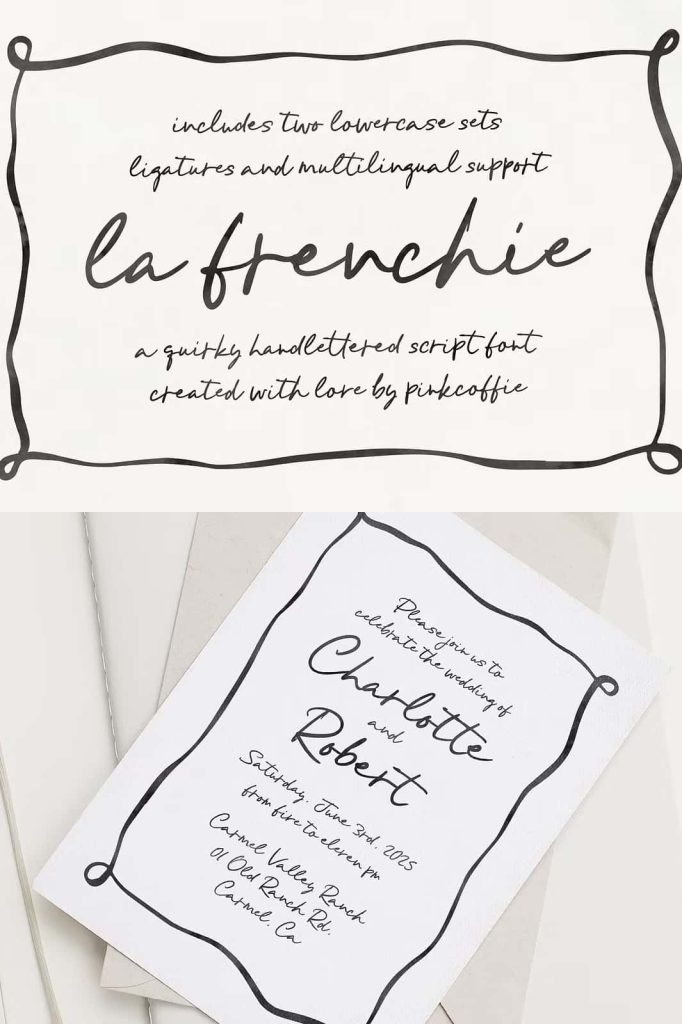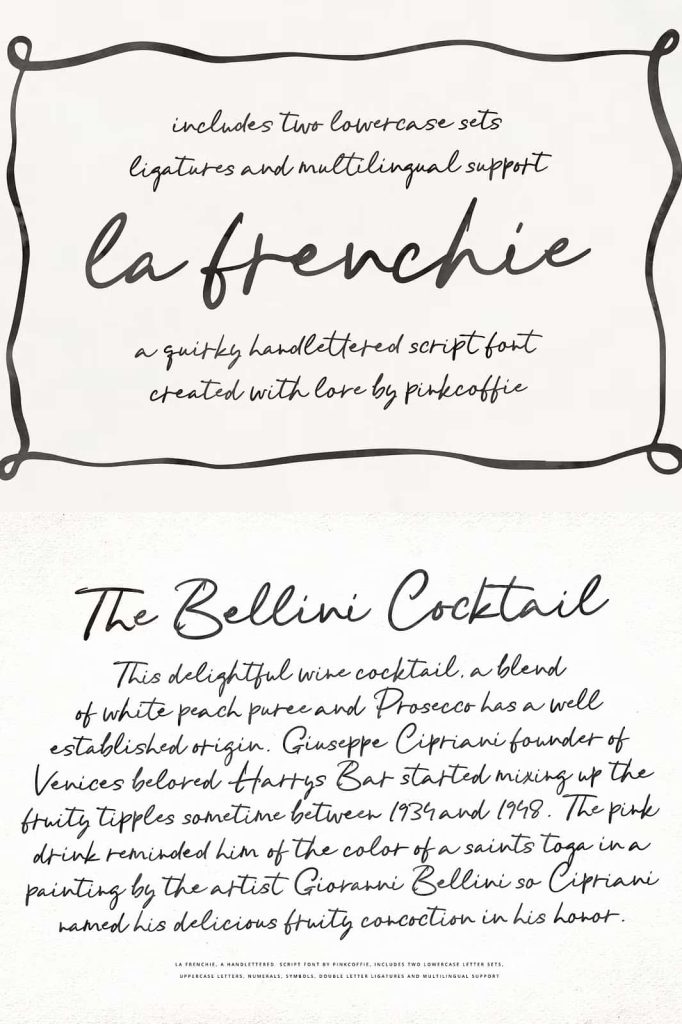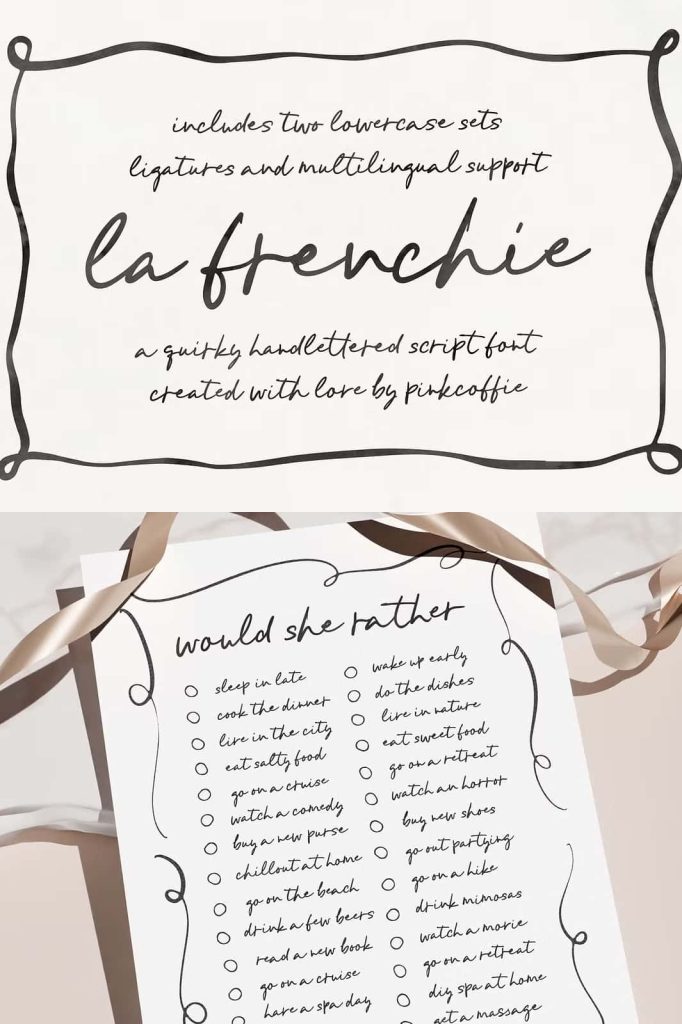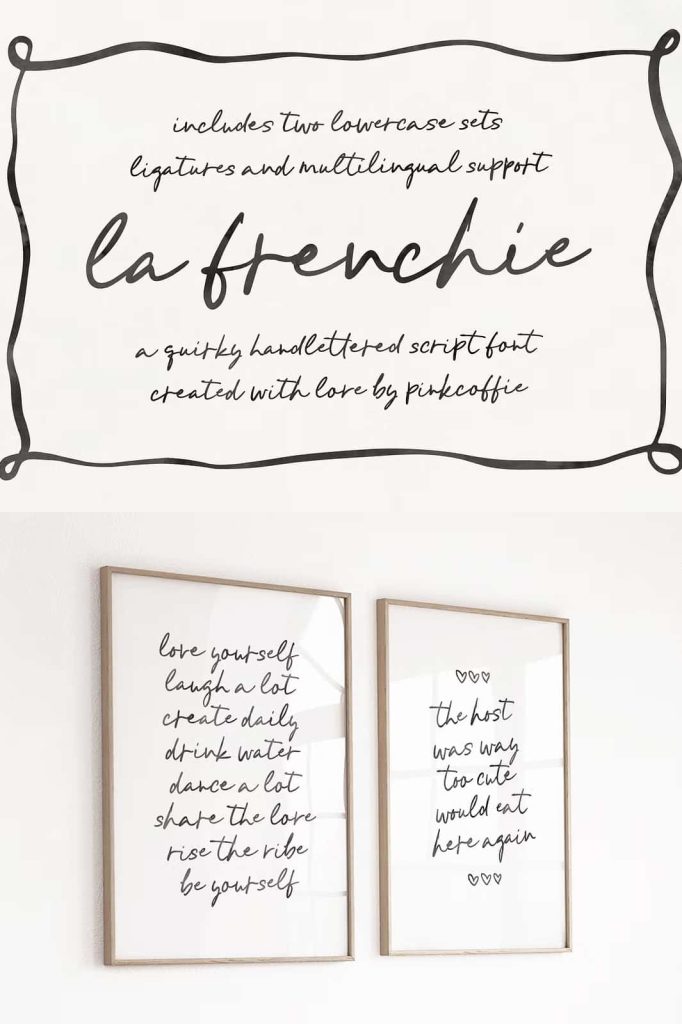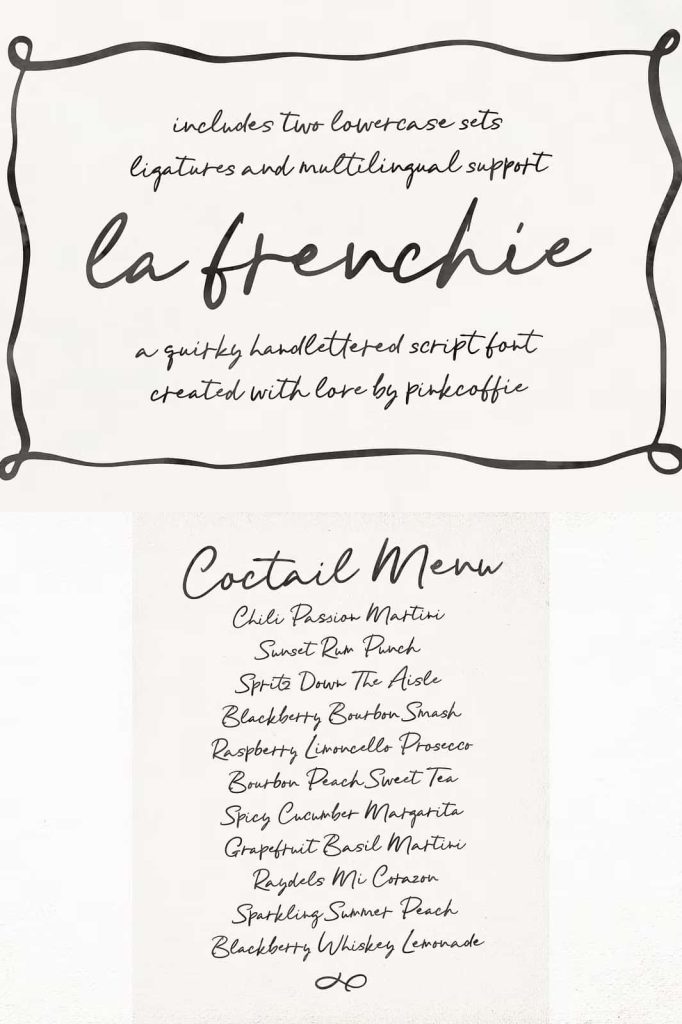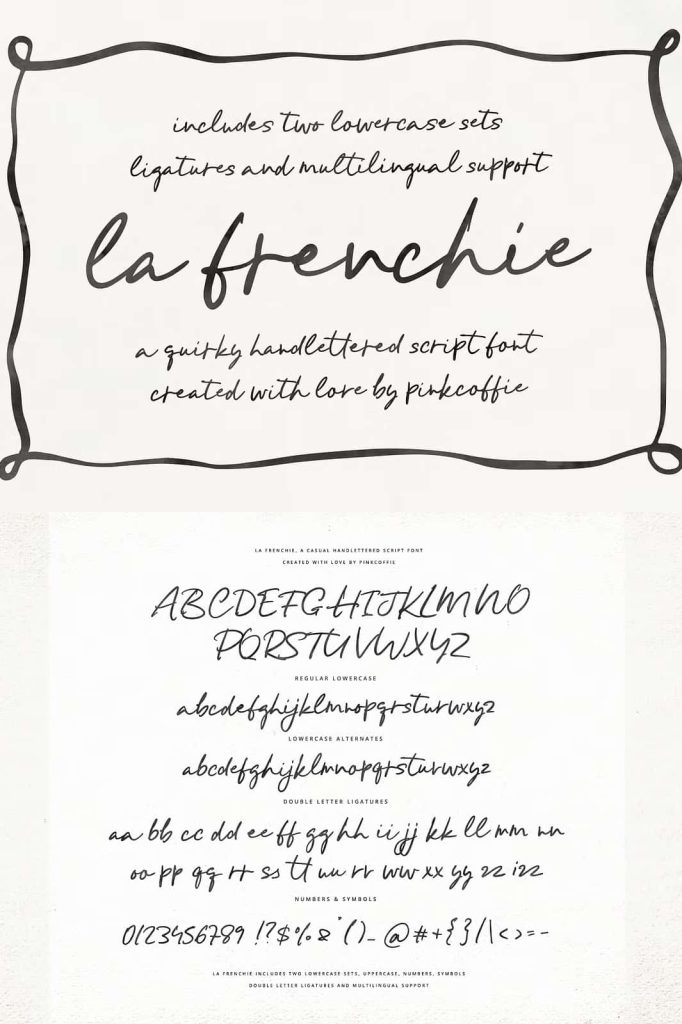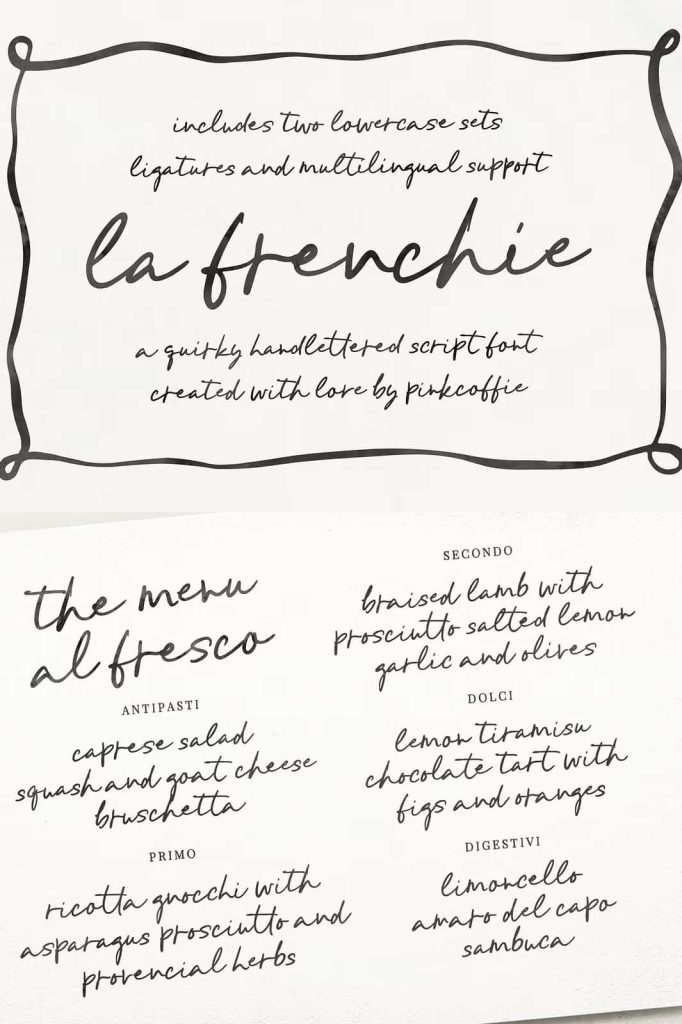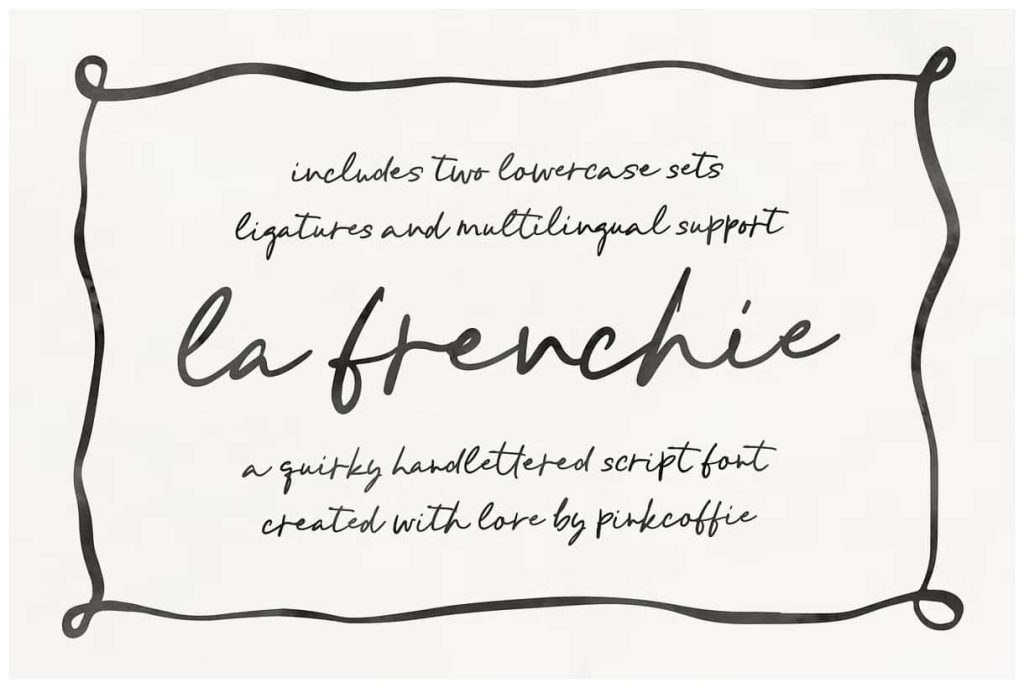
La Frenchie | Handwritten ScriptleastedMarch 15, 2025Fonts La Frenchie is super versatile and can be used for a variety of projects including wedding stationery Download